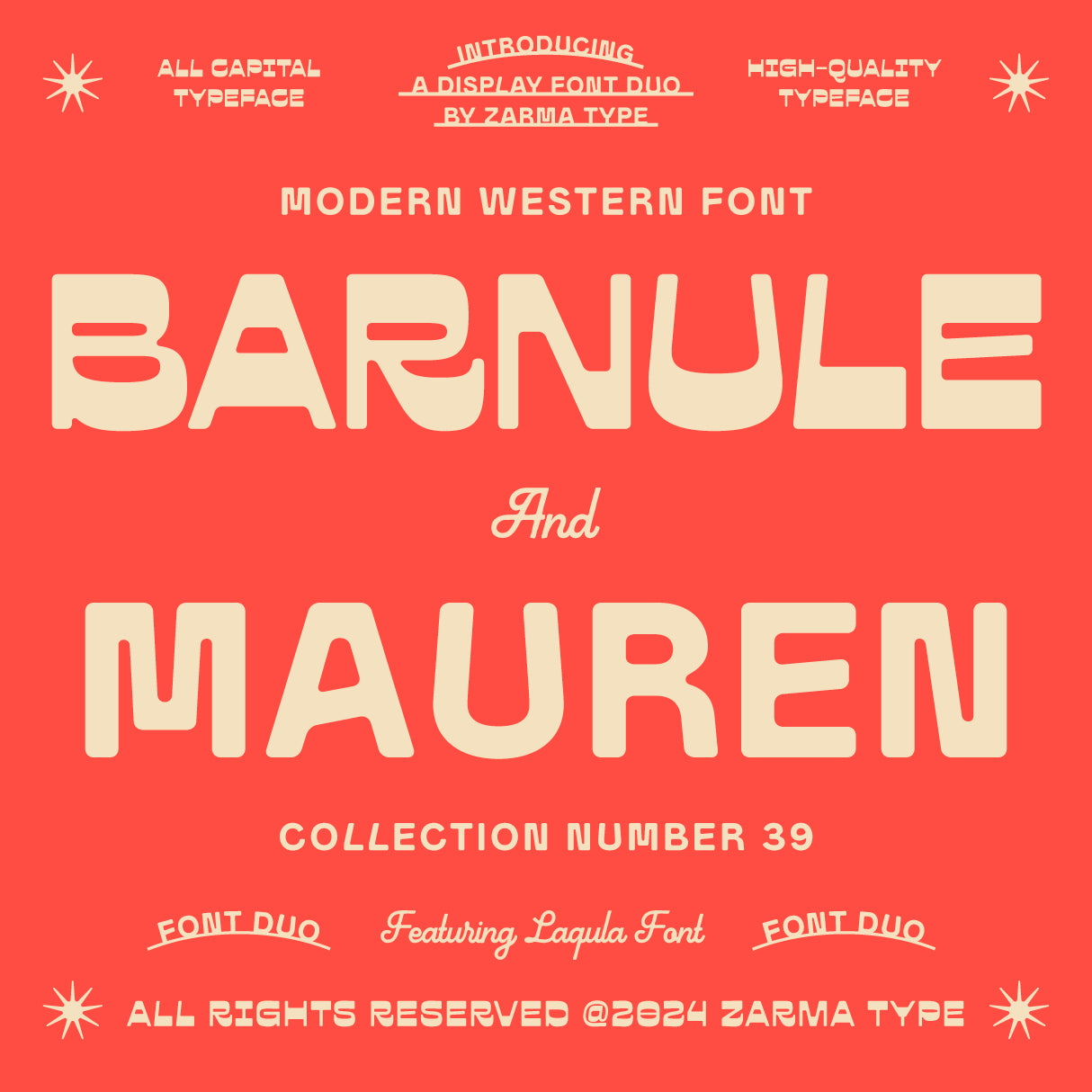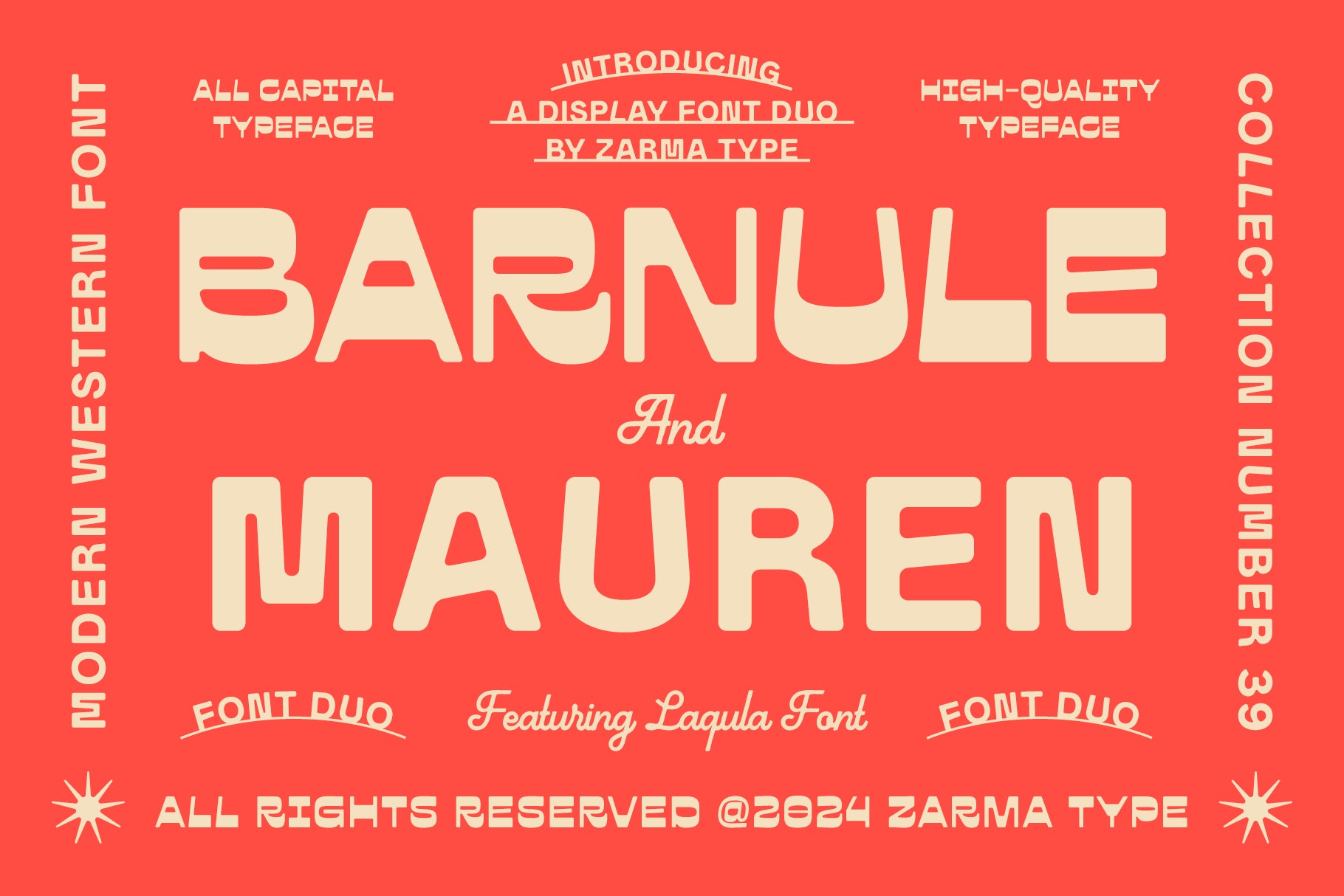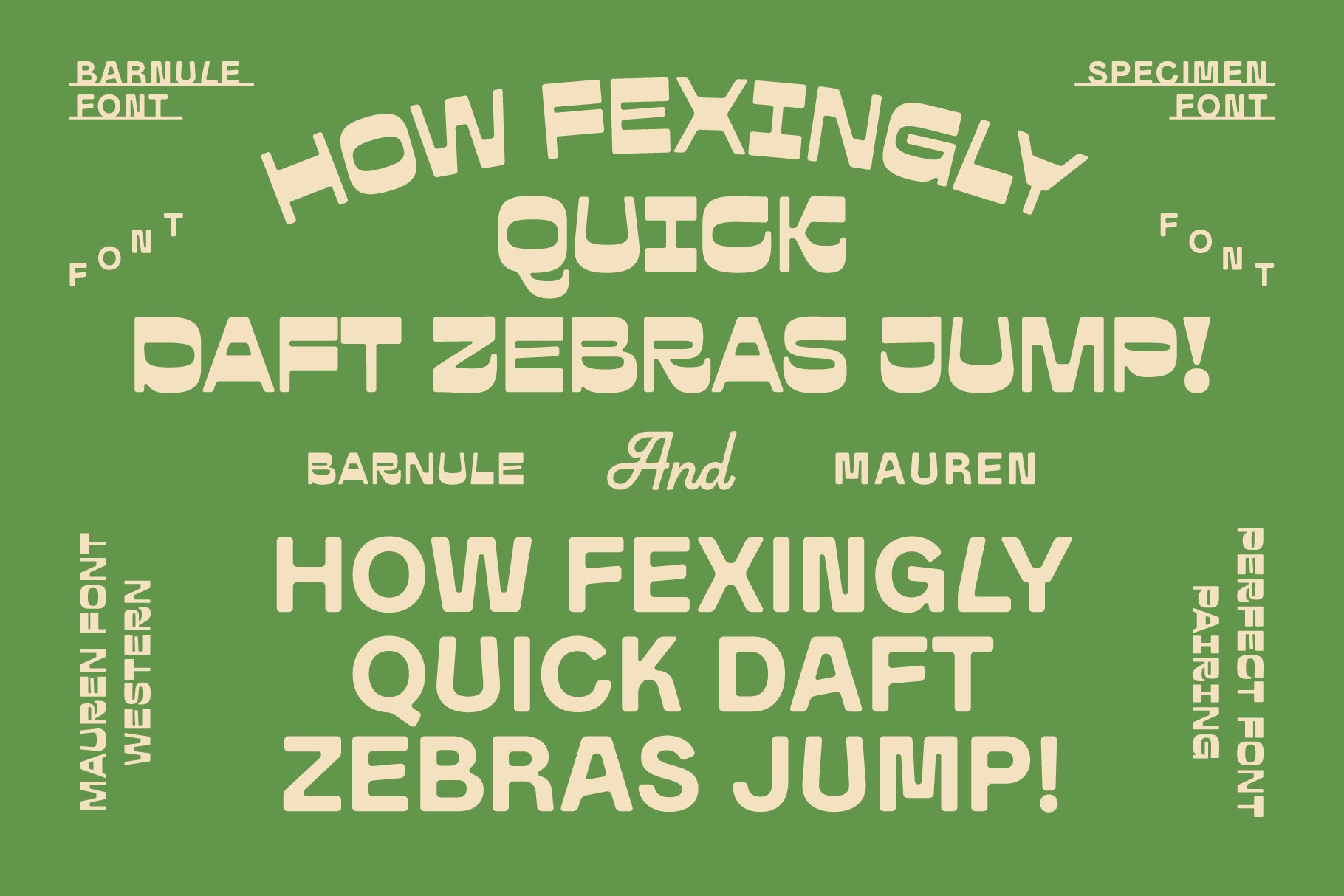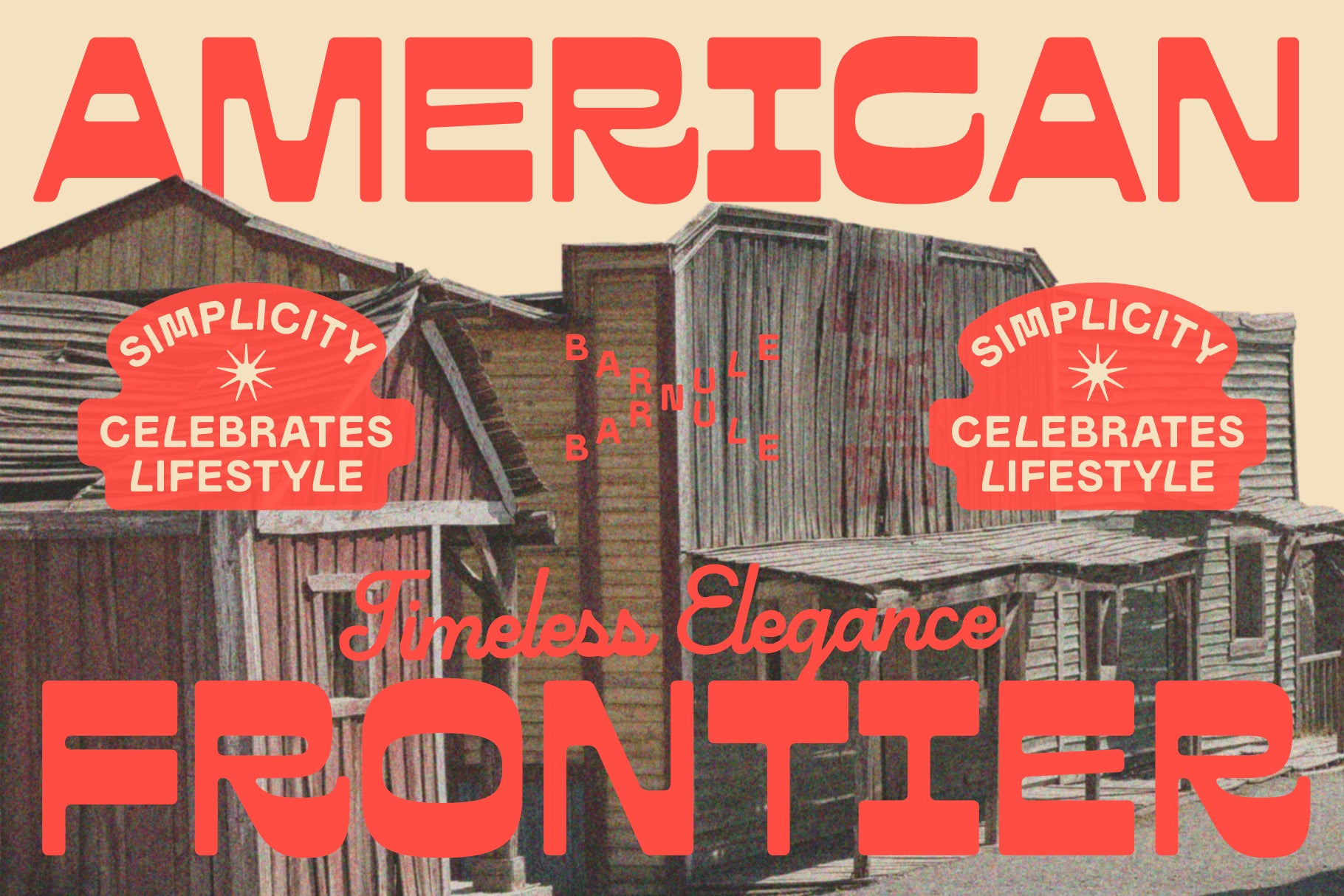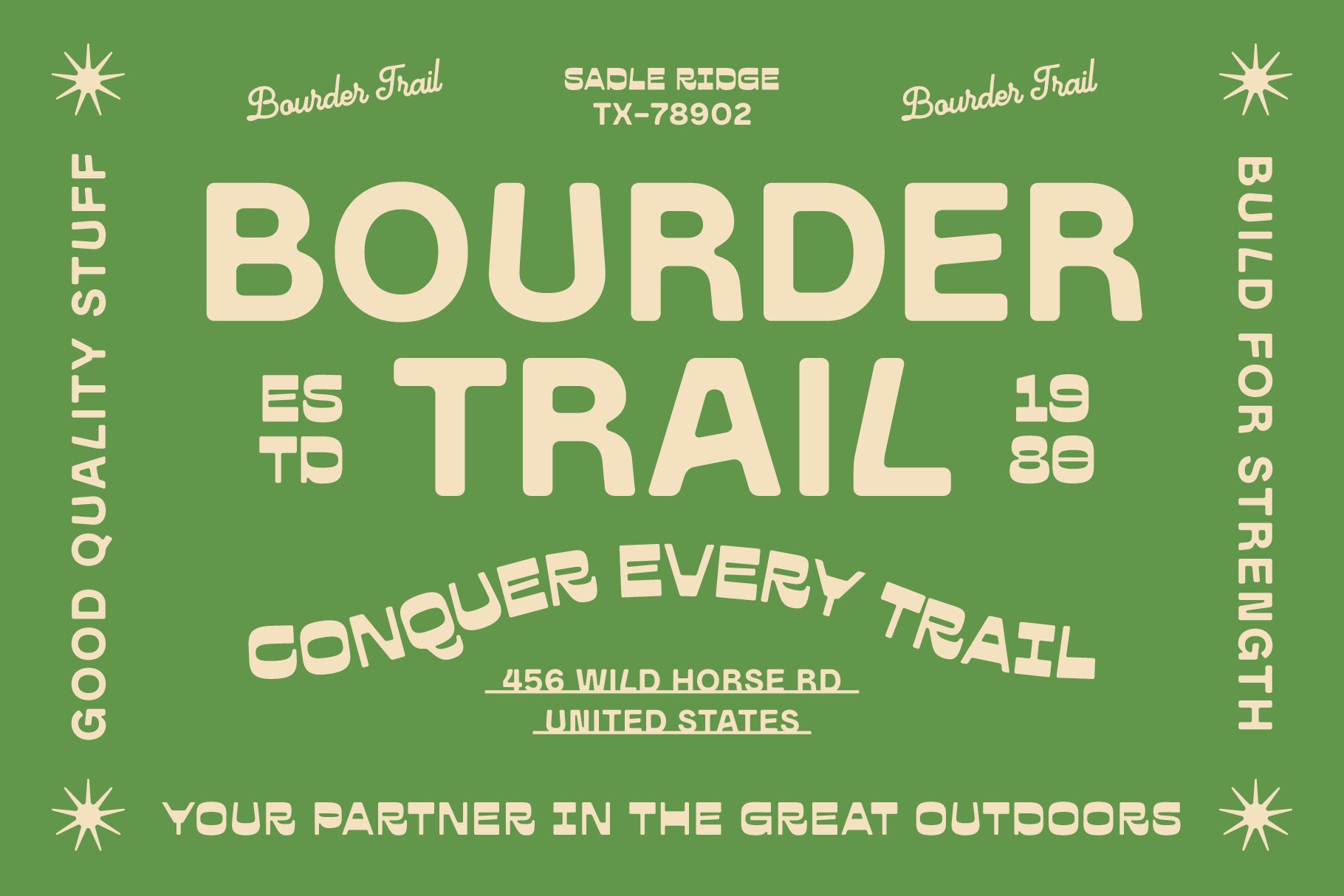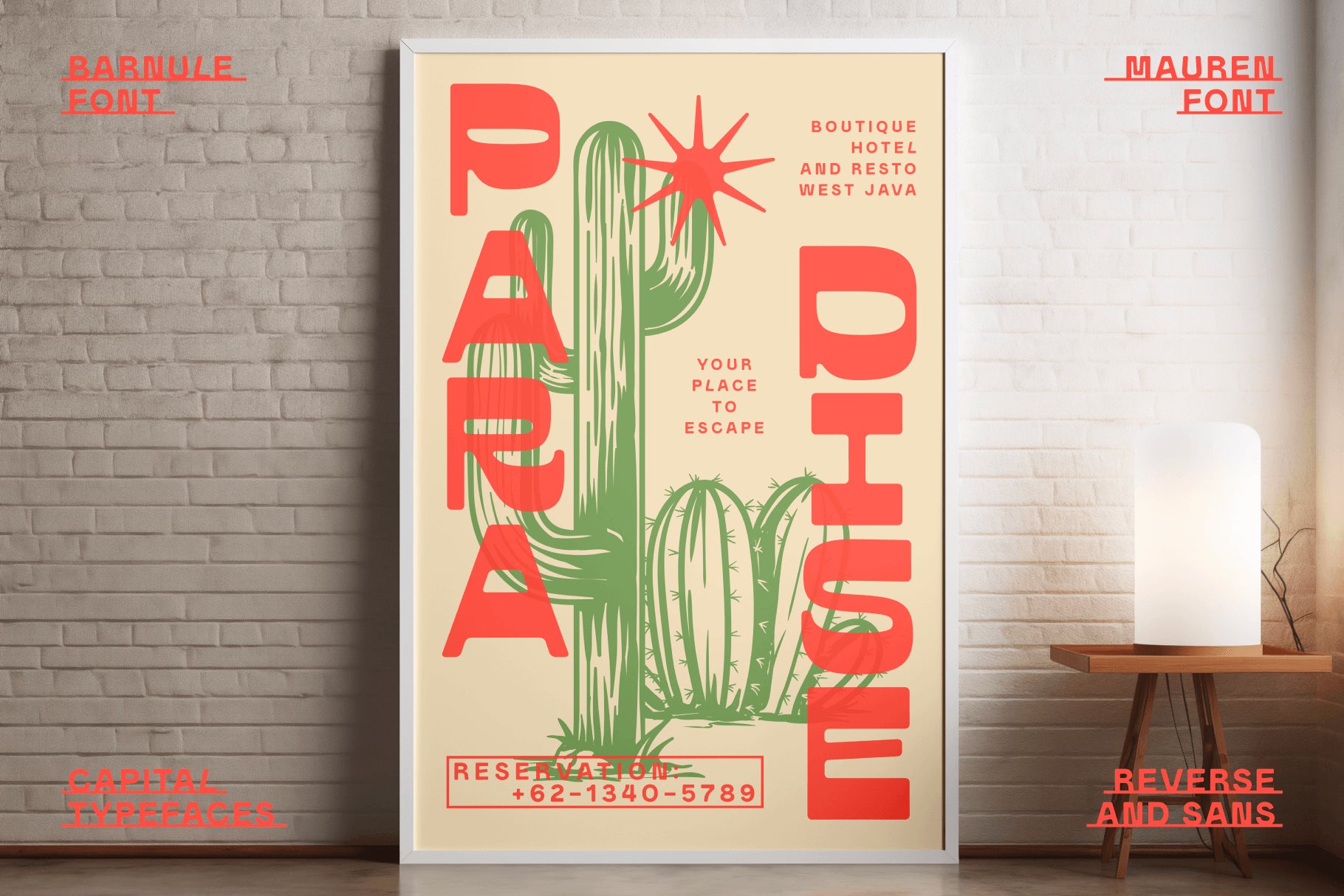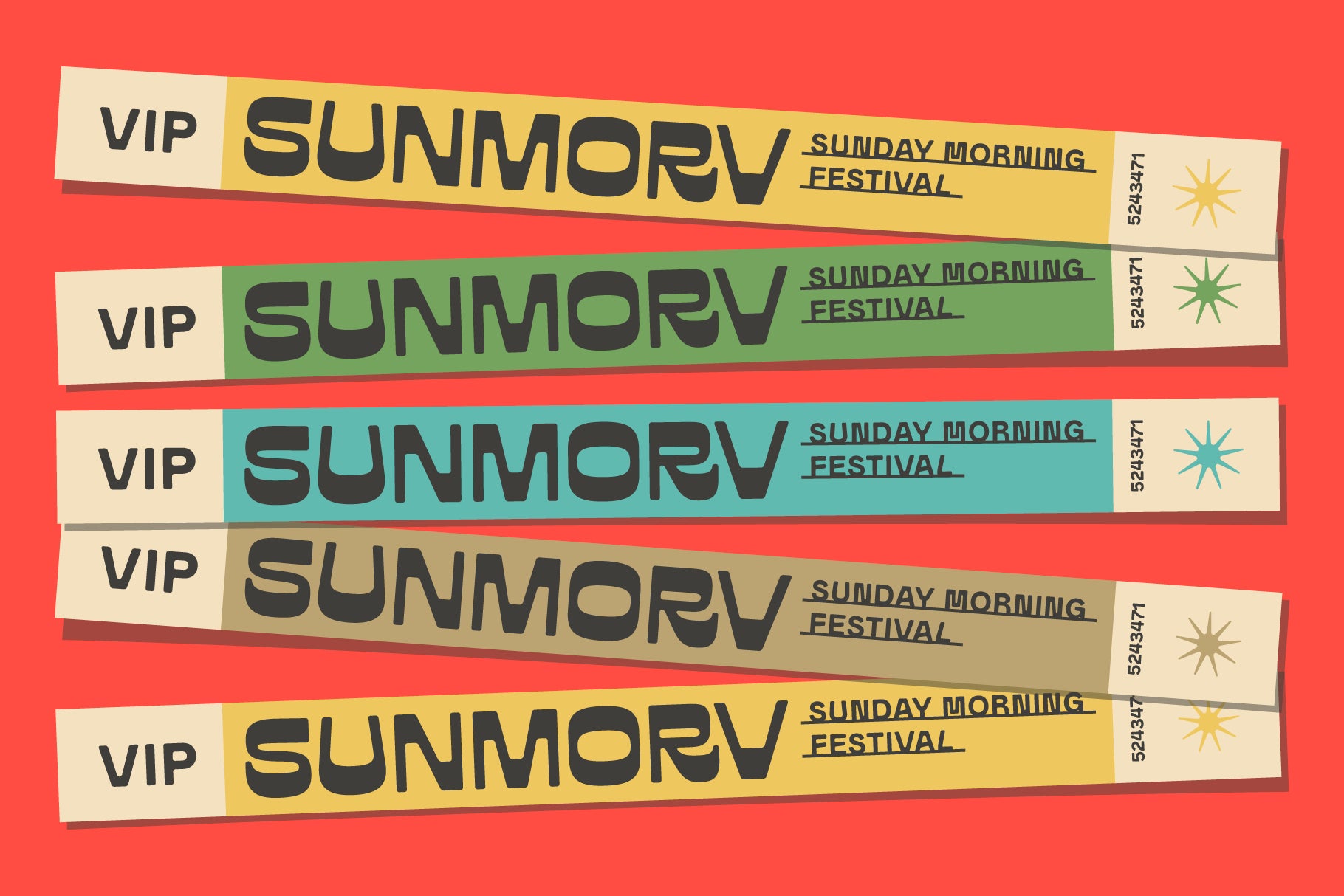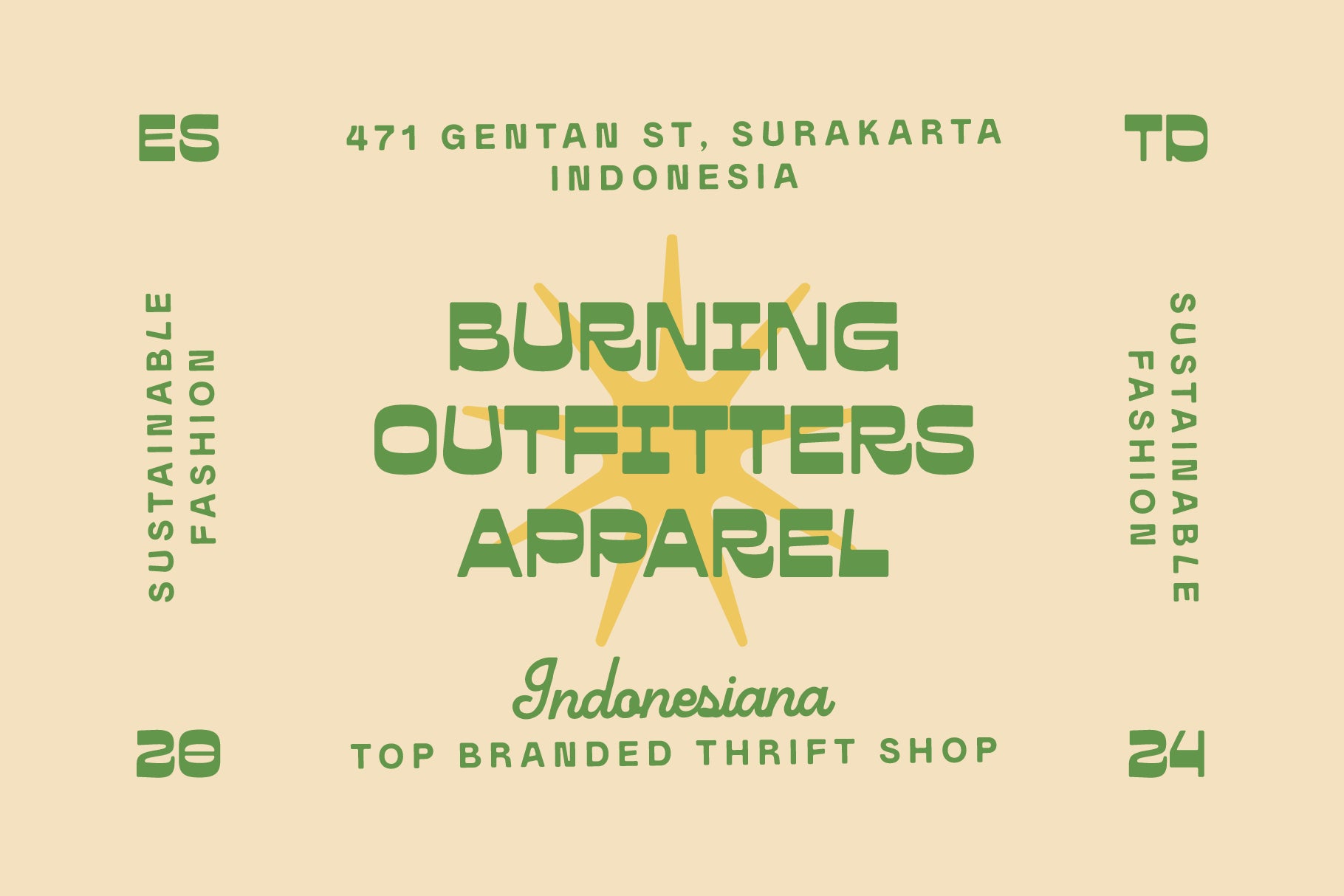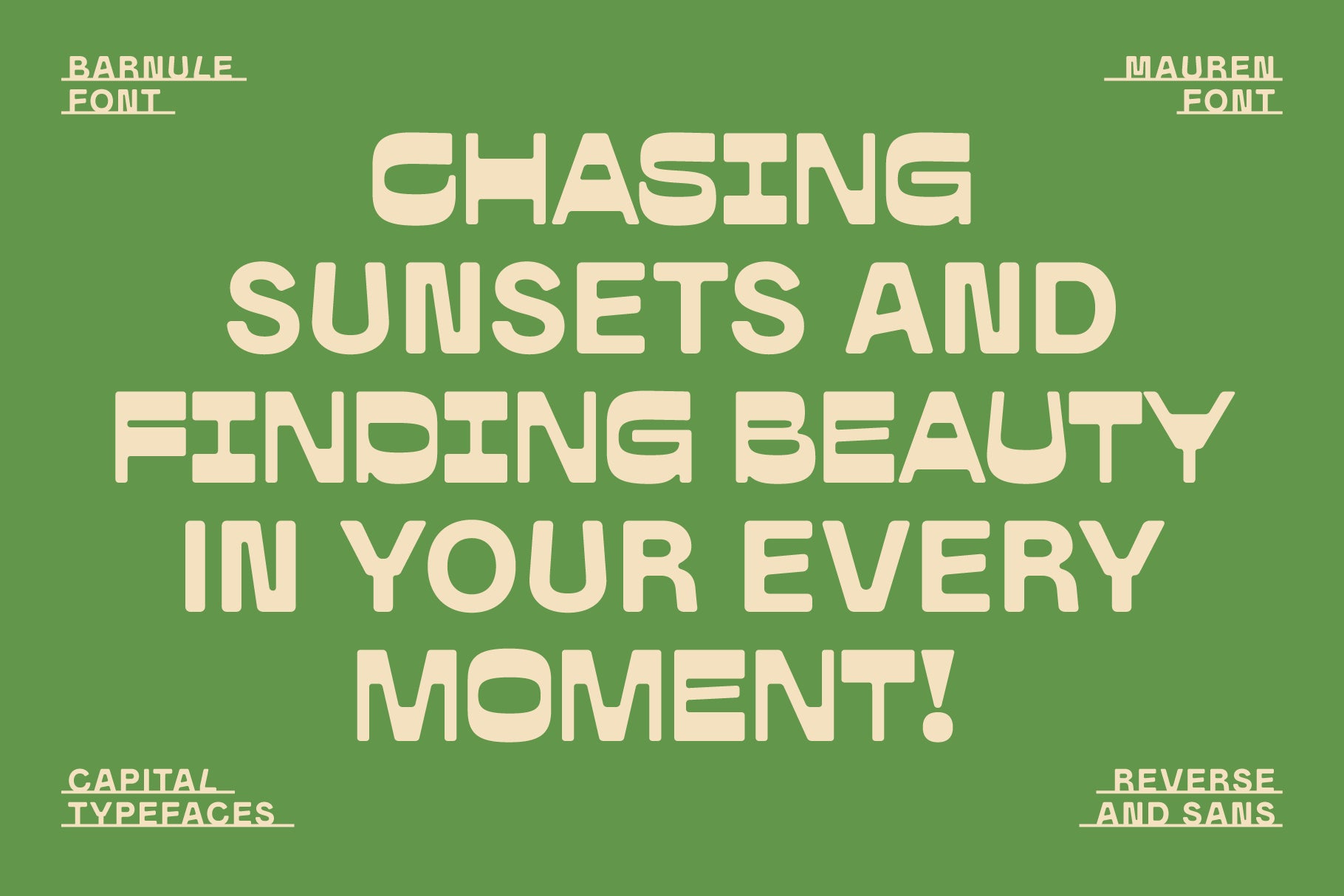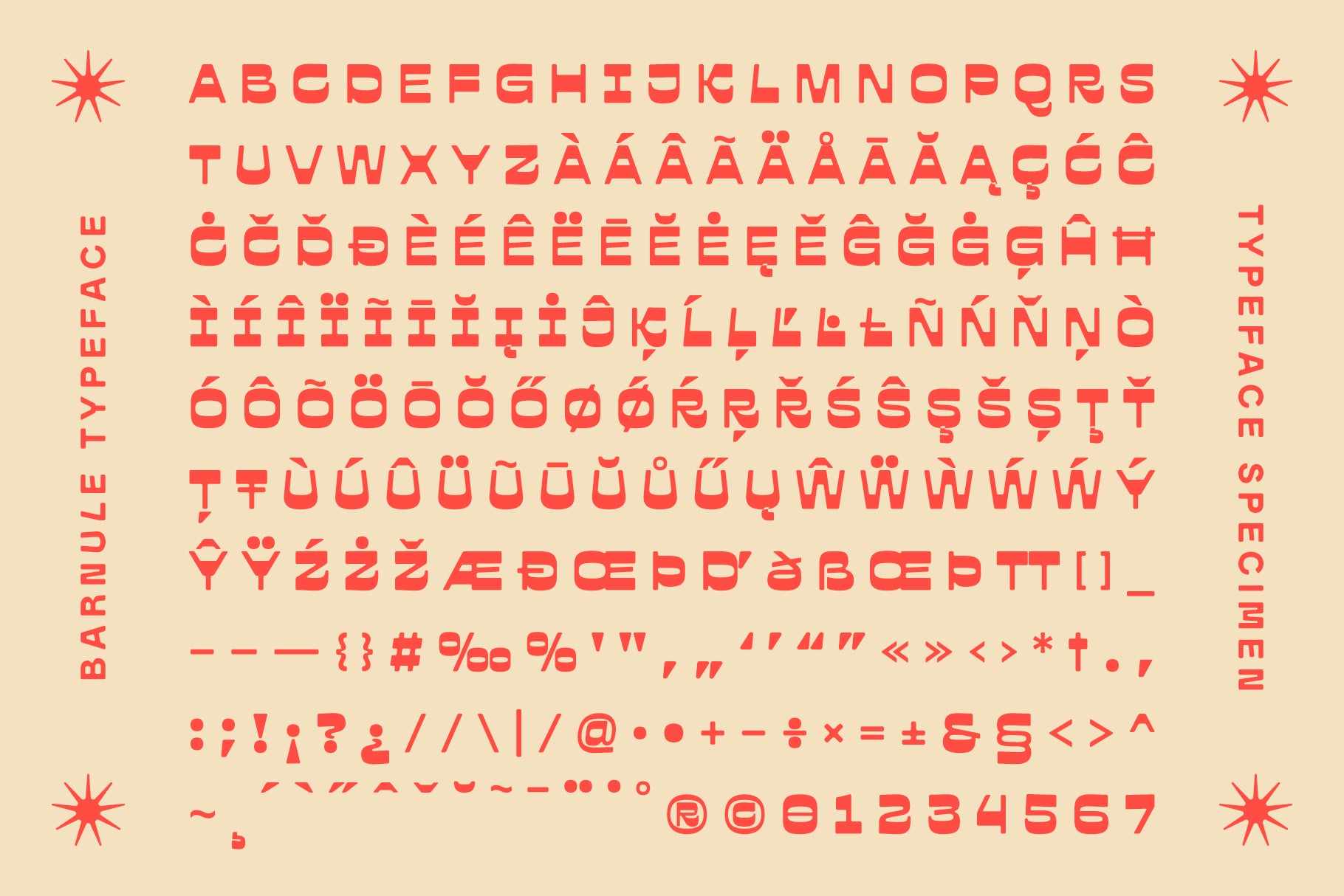
Barnule & Mauren Font
Barnule & Mauren is a bold Western Font Duo that blends modern western flair with timeless retro appeal. Inspired by vintage western and Mexican aesthetics, this all-caps typeface features distinctive rounded edges that bring warmth, character, and authenticity to every design. Its clean, highly readable letterforms make it an excellent choice for apparel, packaging, branding, outdoor-themed graphics, posters, signage, and any project that calls for a bold western identity with a contemporary touch.
Designed for versatility across both digital and print media, Barnule & Mauren includes All Capital characters, numbers, punctuation, OpenType features, and PUA encoded characters for a smooth creative workflow. With an Extended Latin character set featuring 353 glyphs and support for 80+ languages, this font duo provides broad multilingual compatibility while offering a rich collection of stylistic alternates that capture the enduring spirit of the American frontier with simplicity, elegance, and unmistakable western charm.
Barnule & Mauren is a bold Western Font Duo featuring an all-caps typeface with rounded edges, inspired by vintage Western and Mexican aesthetics. It includes 353 glyphs, supports 80+ languages, and offers OpenType features, making it versatile for both digital and print media.